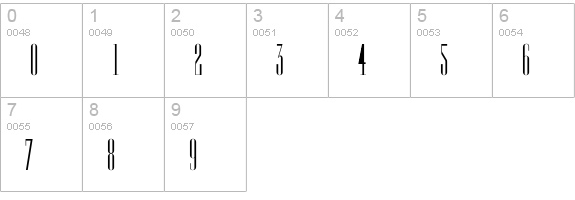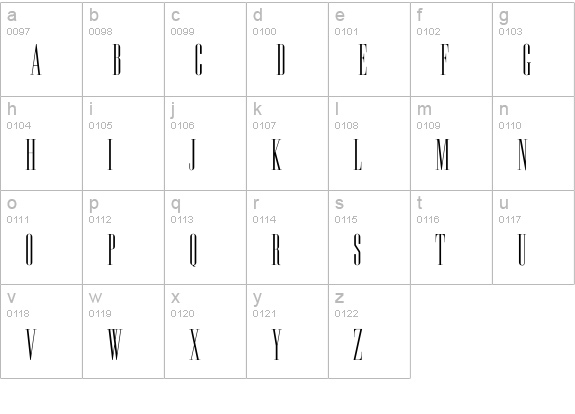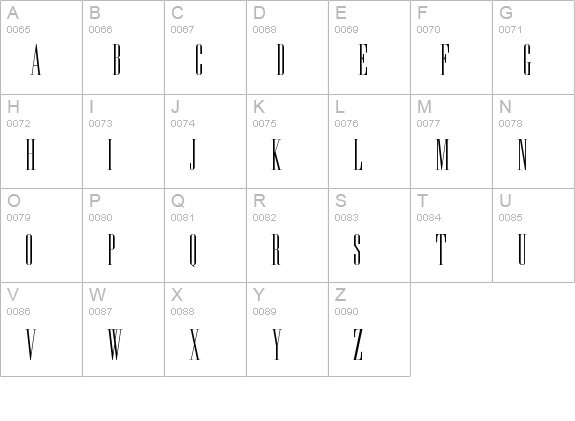
Edition Font Details
Introducing Edition Font, a beautifully crafted typeface that embodies elegance and sophistication. With its sleek lines and graceful curves, Edition Font captures attention and adds a touch of refinement to any design project. This stunning font is not only visually appealing but also versatile, making it perfect for various applications. Whether you're designing a logo, creating a magazine layout, or crafting an invitation, Edition Font will effortlessly elevate your work to new heights. One of the standout features of Edition Font is its wide range of weights and styles. From the delicate and graceful Light variant to the bold and impactful Black variant, this font offers endless possibilities to suit your creative vision. But what truly sets Edition Font apart is its availability. Yes, you heard it right – Edition Font is absolutely free! You can easily download this remarkable font at FontsMarket.com, where it is freely accessible to all users. This means that you can enjoy the beauty and versatility of Edition Font without any cost or restrictions. So why wait? Enhance your designs with the timeless elegance of Edition Font today. Download it for free at FontsMarket.com and let your creativity soar to new heights.